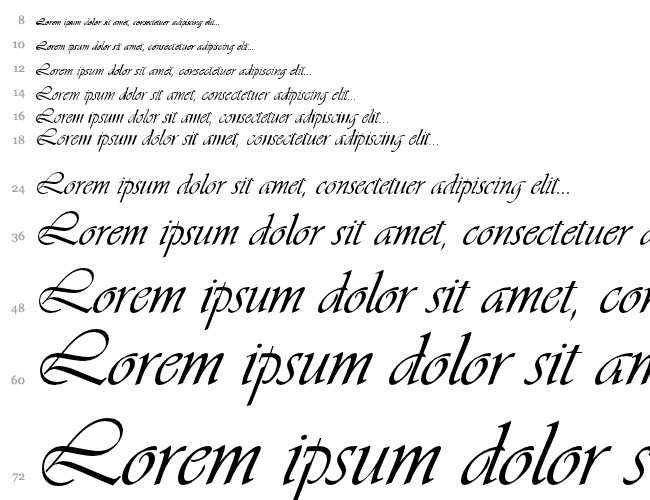
Everywhere where font is written, you change the font to your desired font. To my mind, it must use arial in this case. Vivaldi font family this font family typeface has two different styles, a serif and script style that both have an elegant handwritten look to them with acute bends and thin edges for characters.
This Textured Style Contains A Stylish And Elegant Font Texture Appearance.
Vivaldi font is the category of the script typeface family. Overview vivaldi was designed by friedrich peter. Generous, intricate initial caps combine with a more reserved lowercase to create a beautiful script font.
It Is Ideal For Invitations, Announcements, Certificates, Or Other Work.
Generous, intricate initial caps combine with a more reserved lowercase to create a beautiful script font. Generous, intricate initial caps combine with a more reserved lowercase to create a beautiful script font. This family contains 3 fonts in styles such as regular and italic.
It Is Ideal For Invitations, Announcements, Certificates, Or Other Work Requiring A Distinctive, Formal Appearance.
This is a completely free font that you can use in your graphic designs. The italic style of this font family is used commonly. This curve shape fancy font released in 1970.